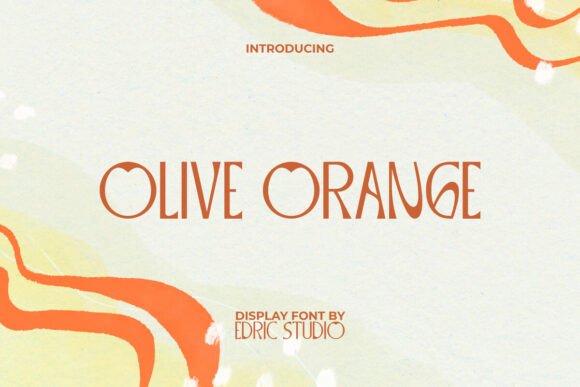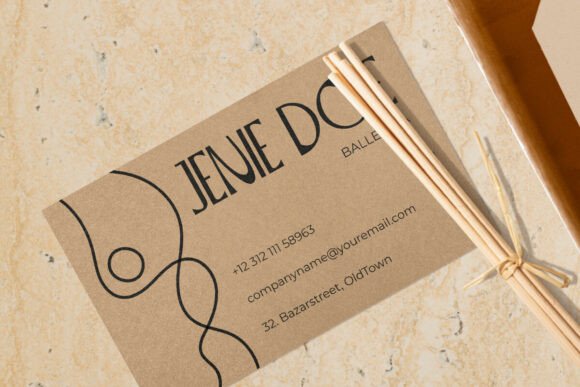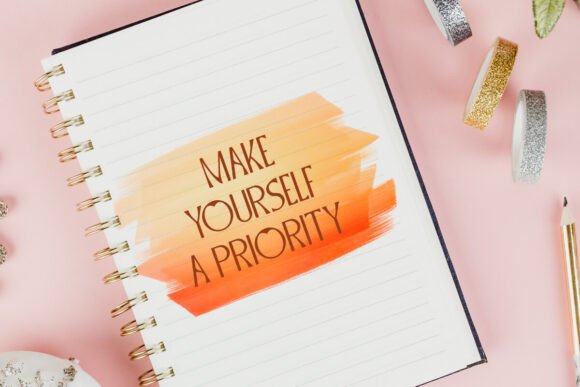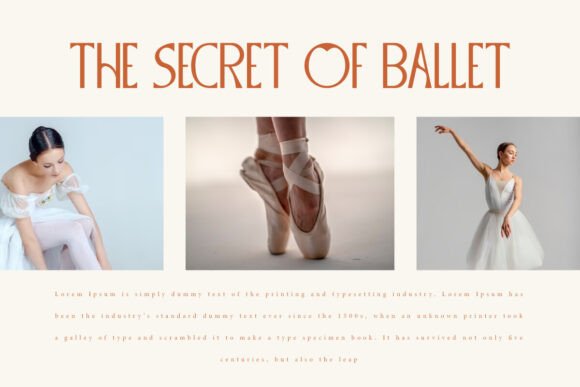
Olive Orange Font: Unique Display Font for Modern Logo Design
About the Olive Orange Font
We are excited to introduce Olive Orange Font, a must-have typeface for any serious designer. Olive Orange Font is a fresh, playful display font with unique character edges. This unique letter shape makes it attractive and can captivate anyone. It will bring a different touch to whatever your design is, such as apps, blogs, brochures, business cards, cover, flyer, header, logos, packaging design, poster, price label, quotes, screen print, signage, sticker, title, website, and more.
Olive Orange Font comes with a full set of ALL CAPS for Uppercase and Lowercase letters, Numbers, Punctuation, and Symbols. The theme is really refreshing to the eye, because of the oranges. It really looks awesome. Can be adapted to suit any industrial needs, such as ads, author, ballet, content creator, convenience store, craft, fashion, gifts and merchandise, graphic design, printing, publishing, web designer, writer, etc.
Olive Orange Font Usage Examples
Olive Orange Font Example